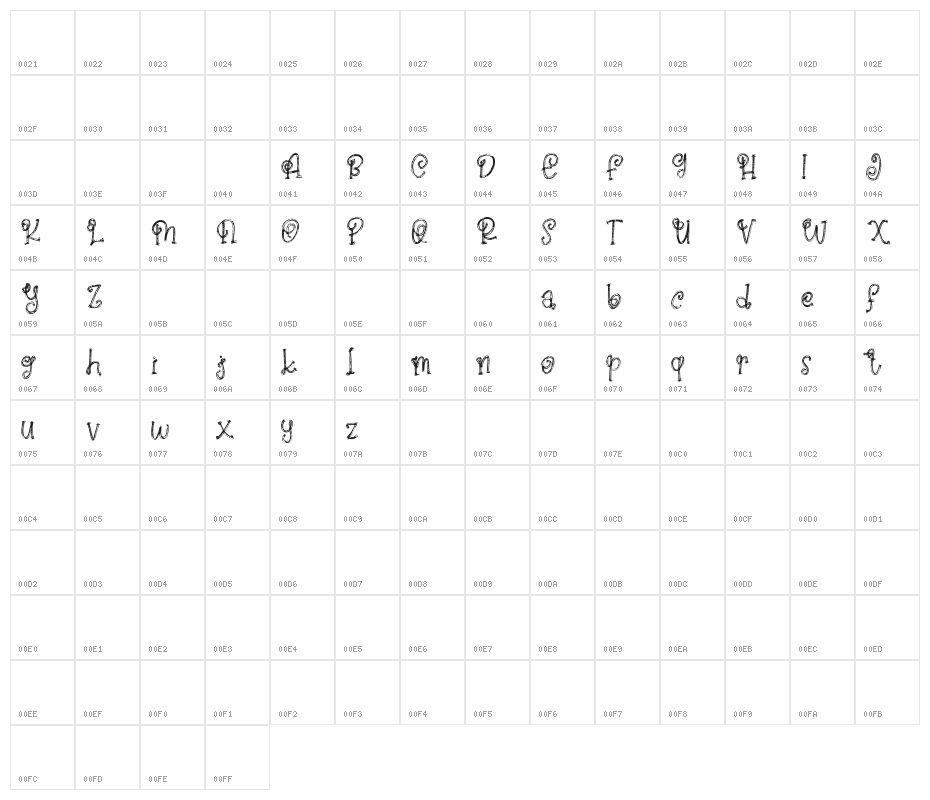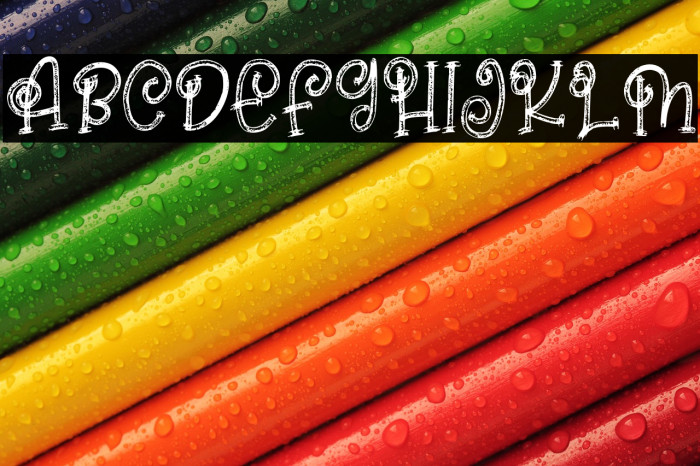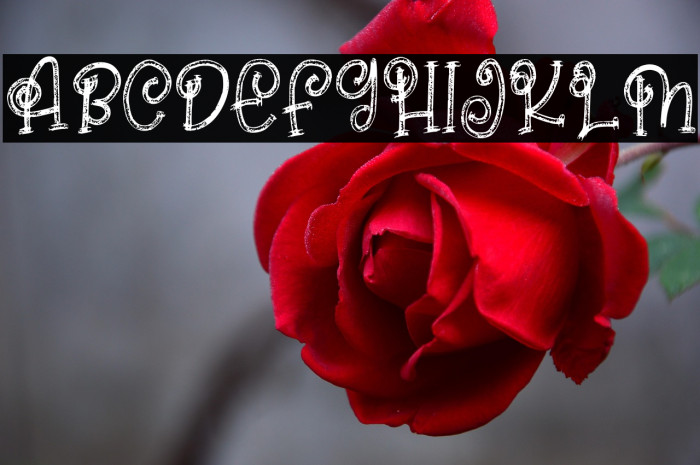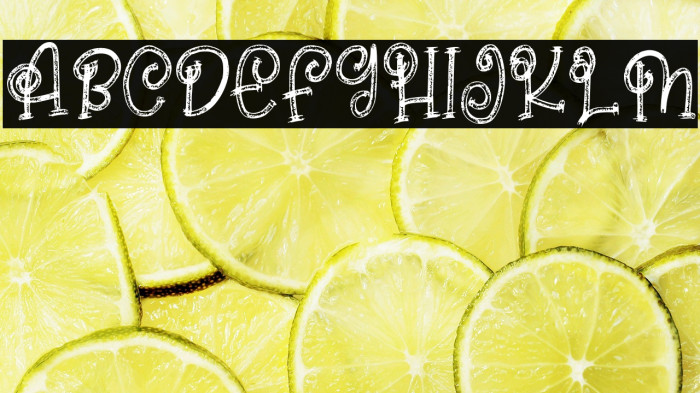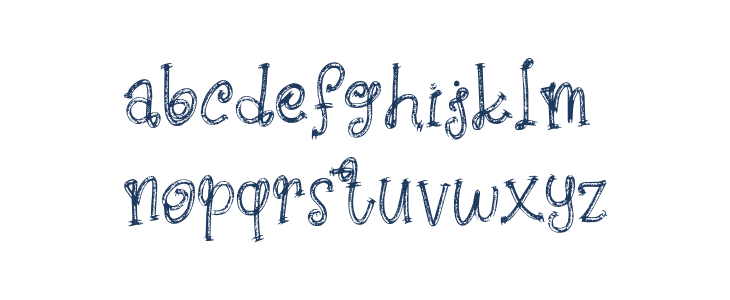
RoseHipsFREE Font
RoseHipsFREE Description
This font features a whimsical and playful design, characterized by its hand-drawn appearance and intricate detailing. Each letter is adorned with unique embellishments, giving it a textured and artistic look. The strokes are uneven, with a sketch-like quality that adds to its charm. The font maintains a consistent height across both uppercase and lowercase letters, while the special characters are creatively integrated, maintaining the overall style. The design is reminiscent of doodles or artistic sketches, making it ideal for projects that require a creative and informal touch.